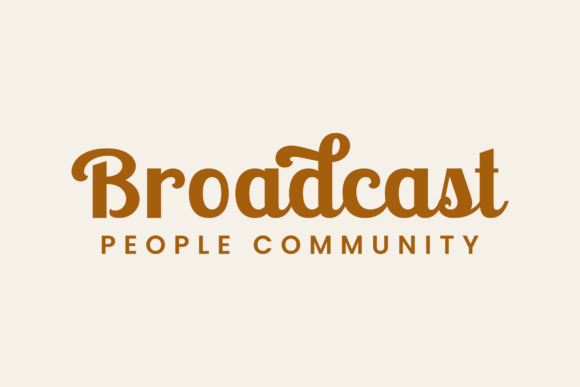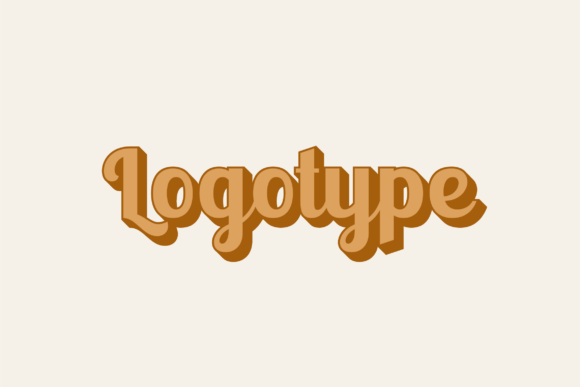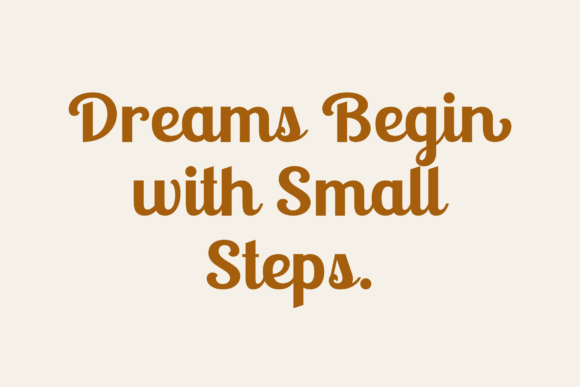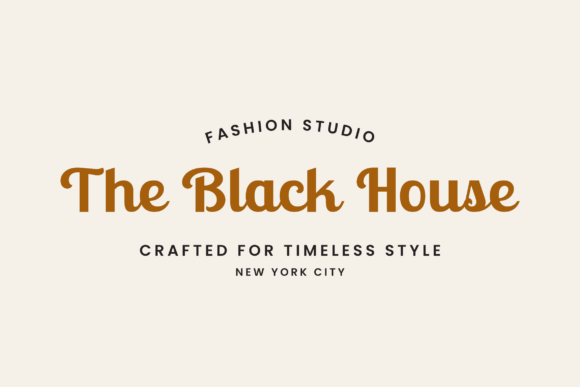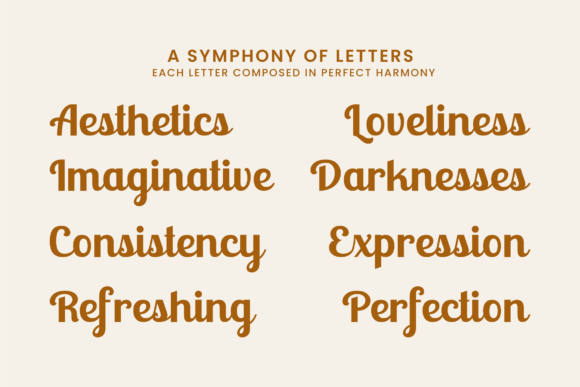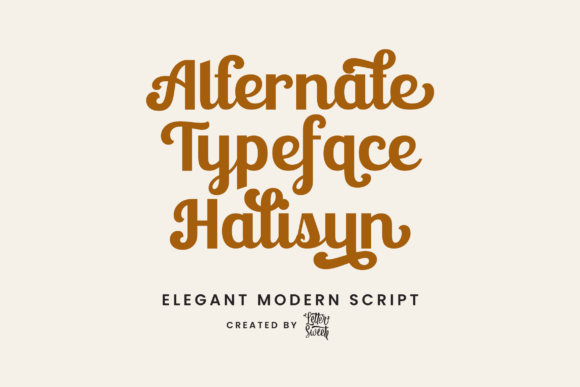
Introducing Halisun Font: Elevate Your Designs with Elegance and Sophistication
In the world of typography, a font can make all the difference in the aesthetic and feel of a design. For those seeking a blend of modern elegance and vintage charm, Halisun Script emerges as a standout choice. This beautiful script font is meticulously crafted to bring a touch of sophistication and warmth to a wide array of design projects. Whether you’re working on logos, invitations, packaging, social media content, or branding projects, Halisun Script is poised to elevate your designs to new heights.
The Essence of Halisun Script
Halisun Script is an elegant modern script font that seamlessly blends smooth curves with a stylish vintage touch. Its design is centered around creating a balance between contemporary appeal and classic charm, making it incredibly versatile for various design applications. The font’s clean lines and flowing forms contribute to a timeless look that effortlessly adapts to both modern and classic design themes.
Ideal Applications for Halisun Script
The versatility of Halisun Script makes it suitable for a multitude of design projects. Some of the ideal applications include:
- Logos: Create memorable and stylish logos that stand out with Halisun’s unique charm.
- Invitations: Whether it’s a wedding, birthday, or corporate event, Halisun Script adds an elegant touch to your invitations.
- Packaging: Elevate your product packaging with a sophisticated look that captures the essence of your brand.
- Social Media: Make your social media posts stand out with a font that exudes elegance and style.
- Branding Projects: Consistency in branding is key, and Halisun Script can be a valuable asset in creating a cohesive and appealing brand image.
- Posters: Create eye-catching posters for events, promotions, or informational purposes.
- Business Cards: Leave a lasting impression with stylish business cards featuring Halisun Script.
- Quotes: Highlight inspirational or promotional quotes with a font that adds emphasis and elegance.
Why Choose Halisun Script?
Choosing Halisun Script for your design projects comes with numerous benefits:
- Elegant and Modern: Halisun brings a fresh yet classic feel to your designs, setting them apart from more generic fonts.
- Versatile: Its adaptability makes it suitable for a wide range of projects, from fashion branding to wedding stationery.
- Timeless Appeal: The font’s design ensures that your work remains stylish and relevant over time, avoiding the quickly outdated look of some trendy fonts.
- Easy to Read: Despite its elegant and flowing nature, Halisun Script maintains readability, making it practical for various applications.
Adding a Touch of Charm to Your Work
In a digital age where designs can easily become monotonous, adding a unique touch can significantly enhance the impact of your work. Halisun Script offers this unique charm, allowing designers and crafters to infuse their projects with personality and style. Whether you’re working on fashion branding, aiming to create a luxurious feel, or designing wedding stationery that requires elegance and romance, Halisun Script is your go-to font.
Halisun Script is more than just a font; it’s a design element that can transform your projects with its elegant and modern charm. Its versatility, combined with its timeless appeal, makes it an invaluable tool for designers and crafters looking to add sophistication and warmth to their work. From logos and invitations to packaging and social media content, Halisun Script is the perfect companion for those aiming to create memorable and stylish designs. Embrace the elegance of Halisun Script and witness how it elevates your designs to a whole new level.